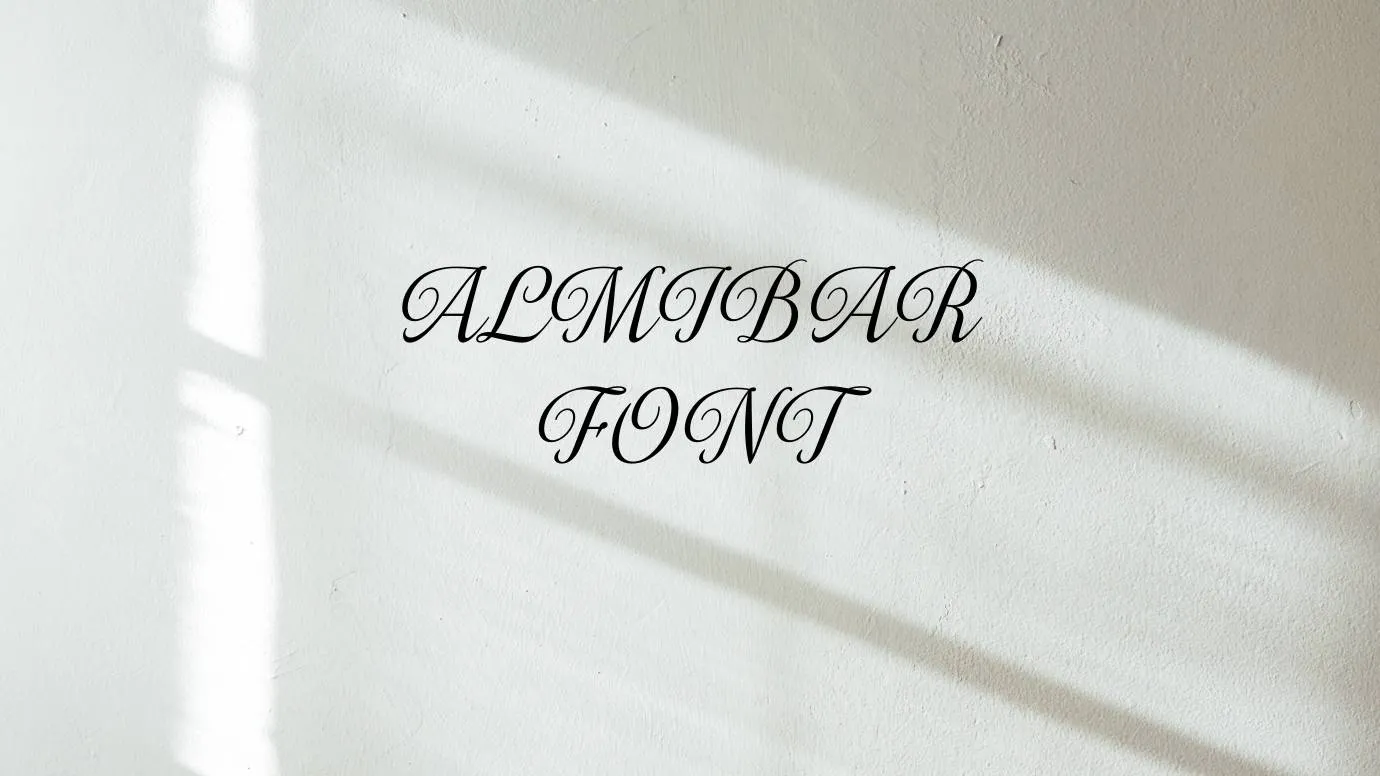
Almibar Font Family a playful and delicate connected script font that is known as Almibar font. It has classic and flowing characters that are perfect to be used in any kind of formal tasks such as labels, invitations, and menus.
Every weight of the designer provides more than 150 cursive characters that are uppercase, lowercase, basic numbers, punctuation marks, symbols, numerous alternates, standard swashes, texture ligatures, and much more special characters that all these qualities make it perfect for multiple platforms.
Almibar Font
NameAlmibar Font
DesignerManuel Eduardo Corradine
FoundryCorradine Fonts foundry
StyleScript
Date Released2013